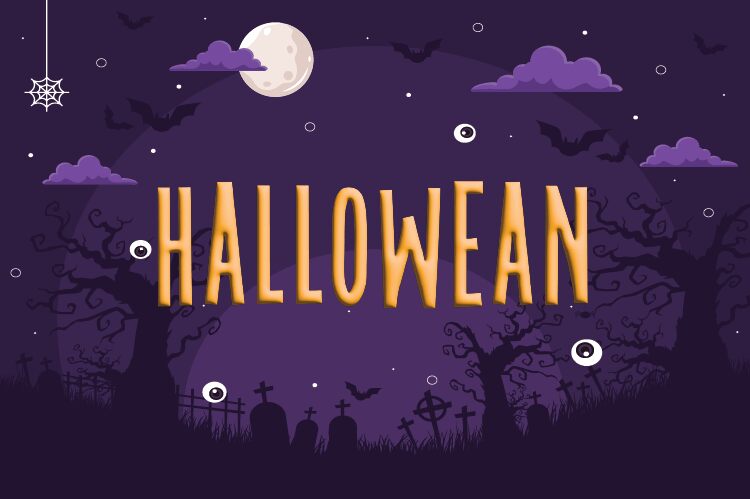
Hallowean font family designed by Hanna Bie includes 2 font styles appropriate for fun and playful Halloween-themed usages. It features a quirky brush typography style with accentuated edges like a pointed tail or eyes. This special holiday font would be particularly fitting for this spooky time of the year. The font would also work for those looking for a new brush typeface with creature-like characters.